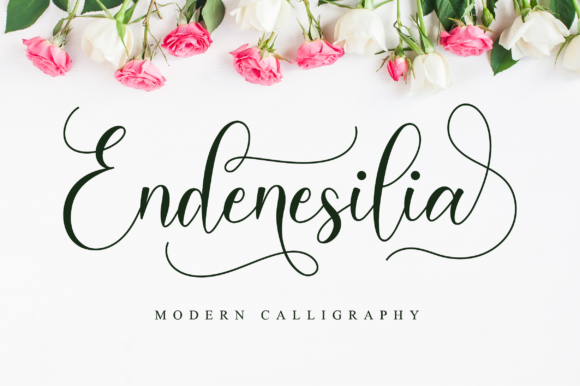
Get ready to be smitten with Endenesilia Font, a mesmerizing script that weaves a tale of enchantment and modernity. Its graceful curves and enchanting swashes will ignite the flame of romance in any design.
Unleash your creativity with this versatile font, perfect for capturing the magic of greeting cards, headlines, and every heartfelt expression. Endenesilia's alluring essence will transform your words into works of art, leaving an unforgettable mark.
Embark on a journey of endless possibilities with its PUA encoding, granting you seamless access to a world of beautiful glyphs and swashes. Discover hidden treasures of alternate glyphs and ligatures, ready to elevate your creations to new heights.
Let Endenesilia's captivating swashes dance across your designs, adding a touch of whimsy and enchantment. Fall head over heels in love with its captivating beauty, where elegance and innovation collide.